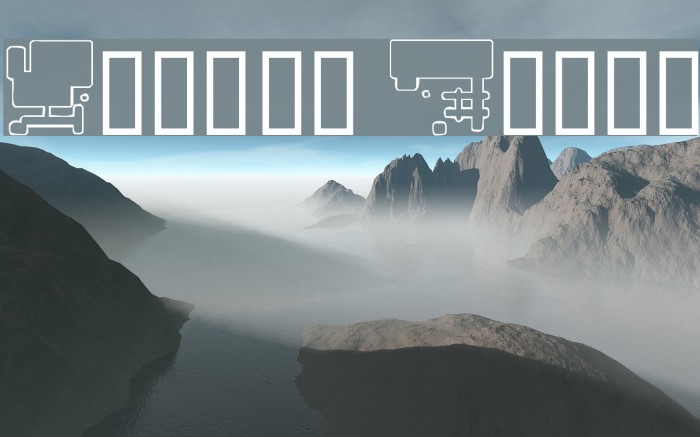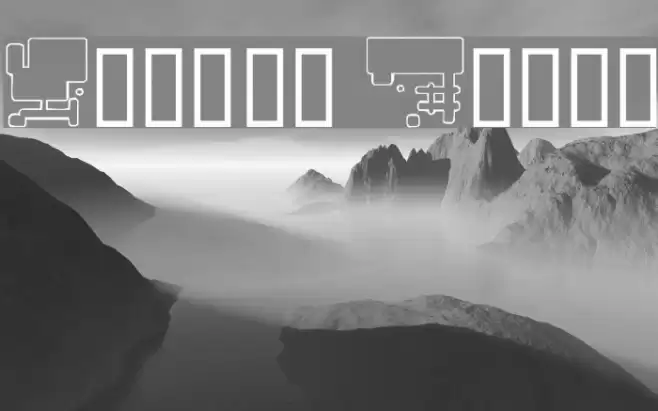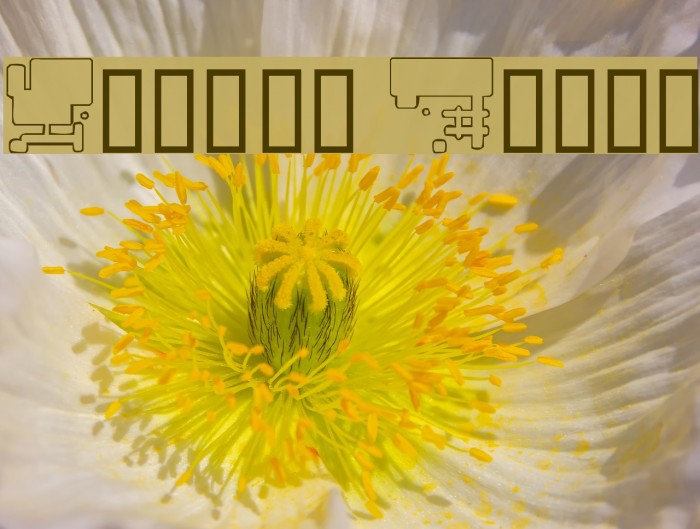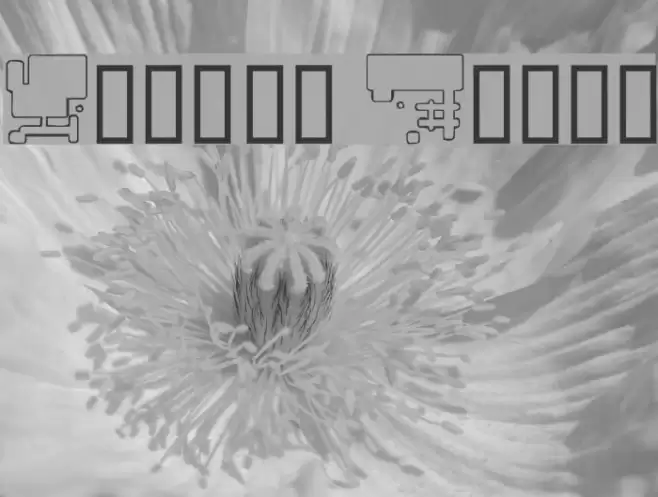
Future Boxes Font
Future Boxes Description
This font features a futuristic and boxy design, with each character enclosed within a rectangular frame. The geometric nature of the letters gives it a highly modern and digital appearance, reminiscent of circuit boards or architectural blueprints. The characters are uniformly spaced and maintain a consistent height and width, contributing to a clean and organized look. This font is particularly suitable for projects that require a tech-savvy or avant-garde aesthetic, making it ideal for use in digital interfaces, tech branding, or sci-fi themed designs.
| Use Case | Logos, Headlines, Digital Interfaces |
| Proposed Projects | Ideal for tech branding, digital interfaces, sci-fi themes, and modern architectural designs. |